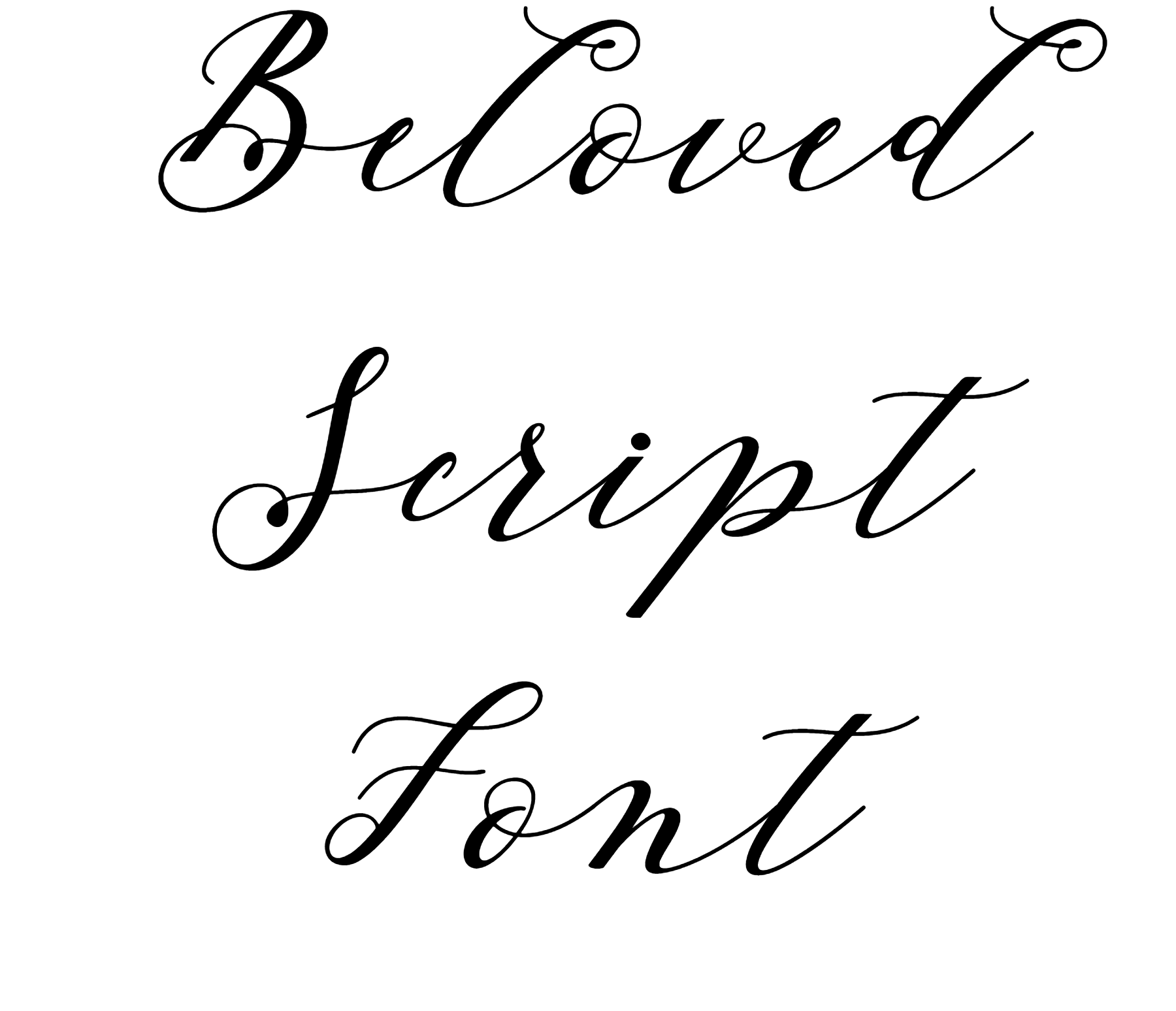
Beloved Script
Beloved Script is a handwritten font created by Musafir LAB (2018). It has a casual, written-with-a-pen look that makes designs feel personal. It's a free download, and you can try it with your own text in the preview above first.
- Designer: Musafir LAB
- Glyphs: 565
- OpenType features: 18 stylistic sets
- Extra characters: 468 copy-and-paste alternates (Private Use Area)
You get every letter from A to Z in both cases and all the numbers from 0 to 9, which means Beloved Script can handle full sentences, dates and prices. Common punctuation such as &, ?, @ and # is included as well. It doesn't include accented letters such as é or ñ, which makes it an English-only font.
Think of Beloved Script for greeting cards, journal pages and friendly social posts. Its lowercase letters are small compared to the capitals, so set it a size or two bigger than usual. Set it a bit larger than you would a normal text font. Handwriting styles lose their charm once they get too small to read comfortably.
Beloved Script was designed by Musafir LAB. The copyright line inside the font is dated 2018.
No. Beloved Script has no accented letters such as é, ñ or ü, so it's best for English text.